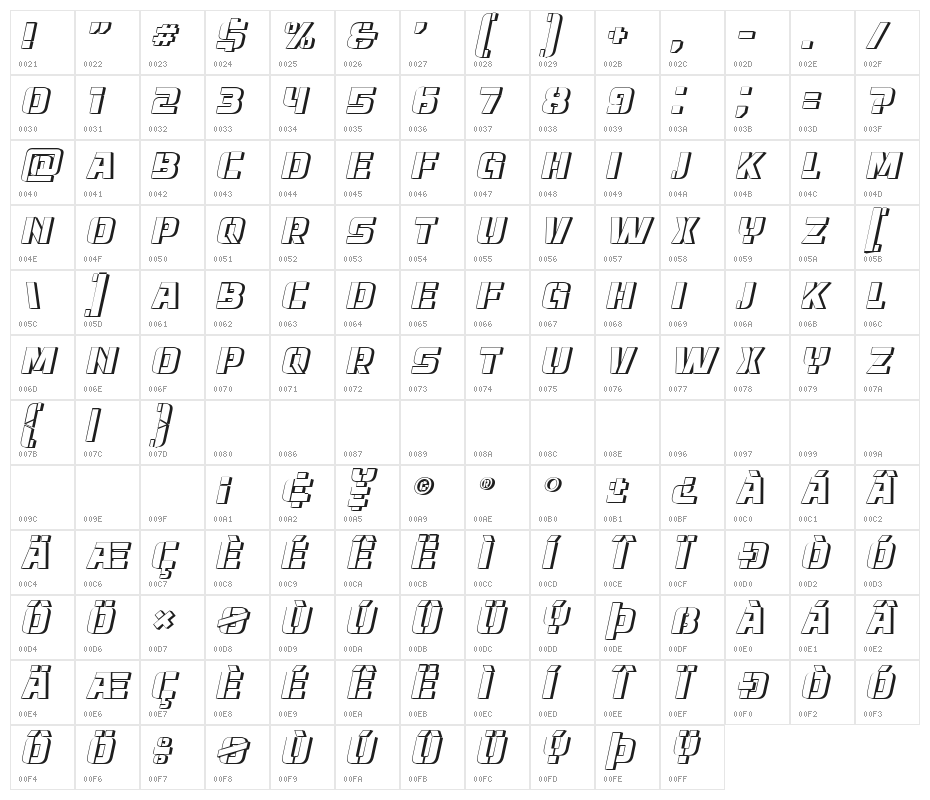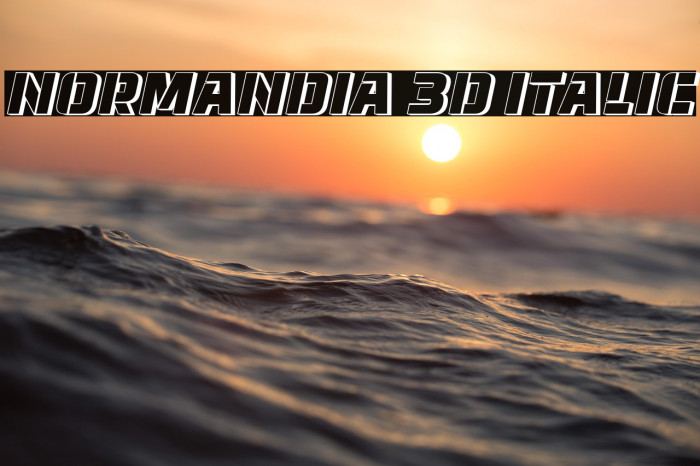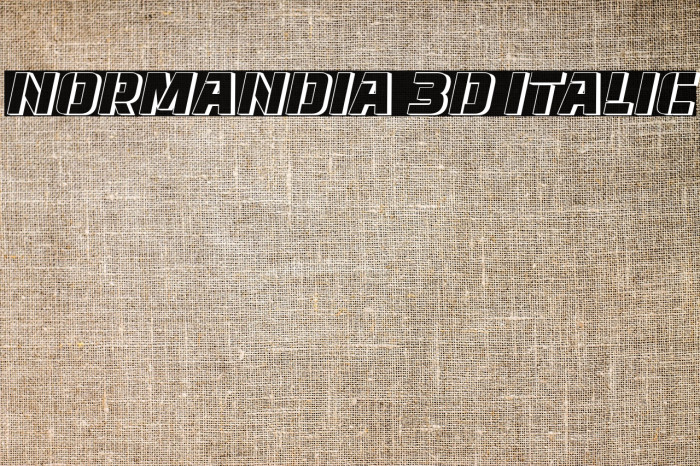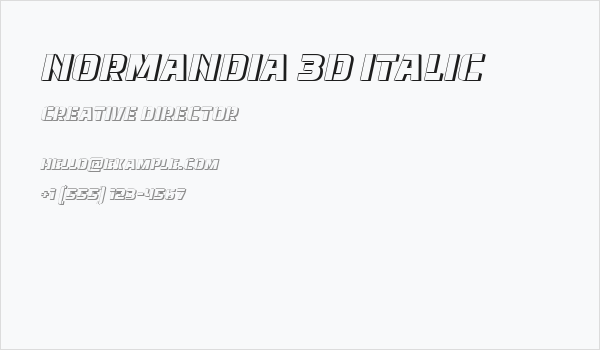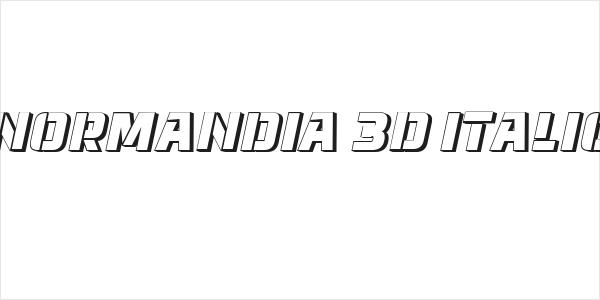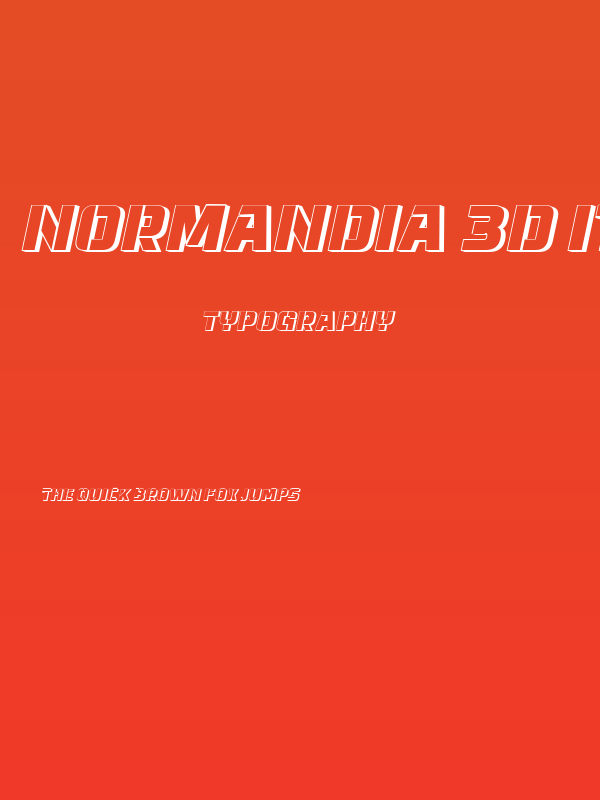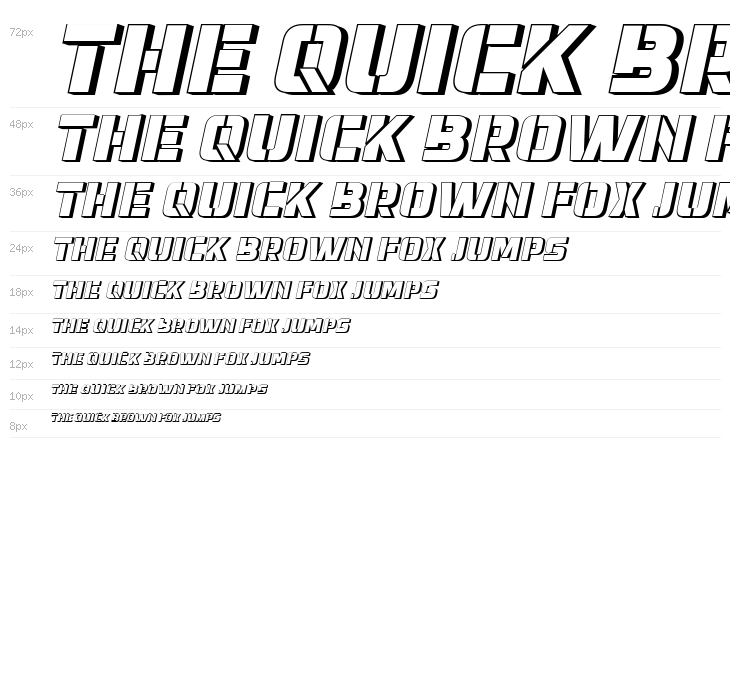
Normandia 3D Italic Font
Normandia 3D Italic Description
This font features a bold, three-dimensional design with an italic slant, creating a dynamic and eye-catching appearance. The letters are outlined, giving them a hollow look that enhances the 3D effect. The style is modern and geometric, with sharp angles and clean lines that convey a sense of movement and energy. The uppercase and lowercase letters maintain consistent proportions, while the numerals and special characters are designed to match the overall aesthetic. This font is ideal for projects that require a strong visual impact.
Proposed ProjectsIdeal for headlines, posters, logos, and any design requiring a striking, modern look.